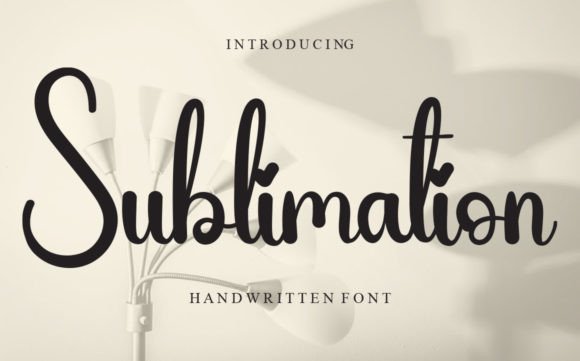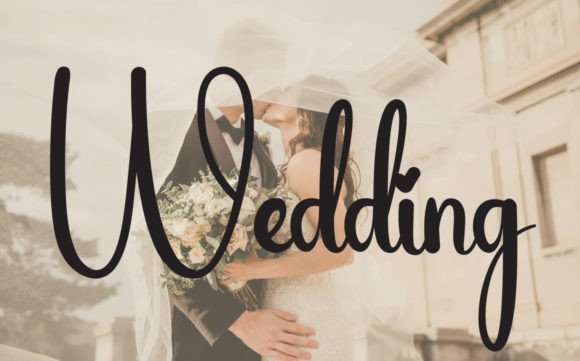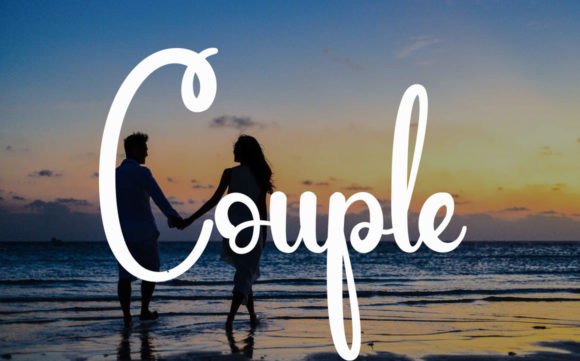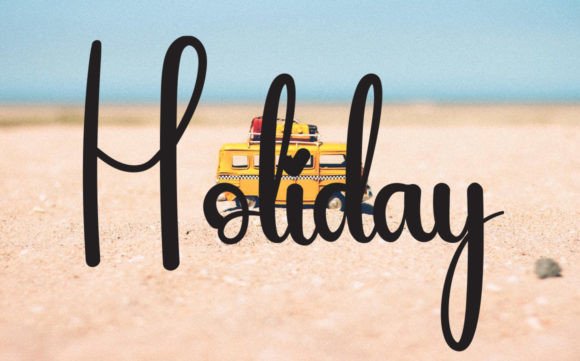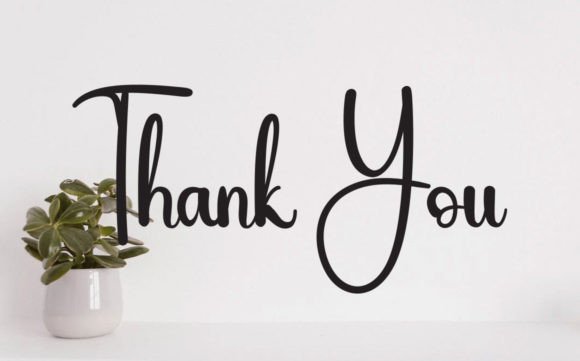
Sublimation Font
About Sublimation Font
Sublimation font is a delicate handwritten typeface designed to bring a cool and unique touch to your creative projects. Its carefully crafted strokes create an elegant and refined look, making it perfect for a wide range of applications. Whether you are designing letters, invitations, food product labels, titles, or other creative works, Sublimation font will enhance your design with its charming personality.
Elegant and Unique Handwritten Style
The beauty of Sublimation font lies in its gentle, flowing strokes that resemble natural handwriting. This delicate style adds a personal and intimate feel to your projects. It balances sophistication and warmth, which makes it highly suitable for creative designs that require a unique and cool appearance.
Perfect for Invitations and Letters
Sublimation font works wonderfully for invitations and letters. Its refined curves and legible characters create a warm and inviting atmosphere, ideal for wedding invitations, thank you cards, or personal letters. The font’s elegance ensures that your messages will look beautiful and memorable.
Great for Food Product Labels and Titles
This font is also a fantastic choice for food product packaging and labels. Its unique handwritten style conveys authenticity and craftsmanship, which appeals to customers looking for artisanal and high-quality products. Additionally, Sublimationfont works well for titles and headings, making your text stand out with a delicate charm.
Versatile Usage for Creative Projects
Beyond invitations and product labels, Sublimationfont suits a variety of other creative projects. It can be used for branding, social media graphics, signage, and more. Its delicate and unique look adds personality and style to any design, making it a versatile addition to your font collection.
Sublimationfont is a delicate and elegant handwritten typeface perfect for letters, invitations, food product labels, titles, and many other creative projects. Its cool, unique design will help your creations stand out with a charming, handcrafted touch.